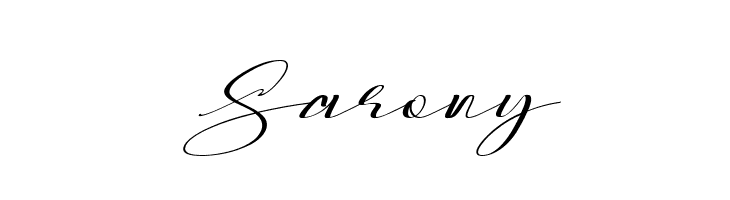
A flowing, cursive handwritten font with elegant connections and smooth strokes.
A bold, geometric font with a modern, industrial aesthetic.
A bold, decorative font with star-adorned characters, perfect for playful designs.
A playful handwritten font with smooth curves and a friendly appearance.
A vintage, typewriter-inspired font with a textured, distressed appearance.
A flowing, cursive script font with elegant loops and swashes.
A bold, outlined, italic font with angular, geometric characters.
A playful, bold, hand-drawn font with rounded, irregular characters.
A bold, mechanical font with a pixelated, gear-like design.
An elegant script font with fluid, cursive strokes and decorative swashes.